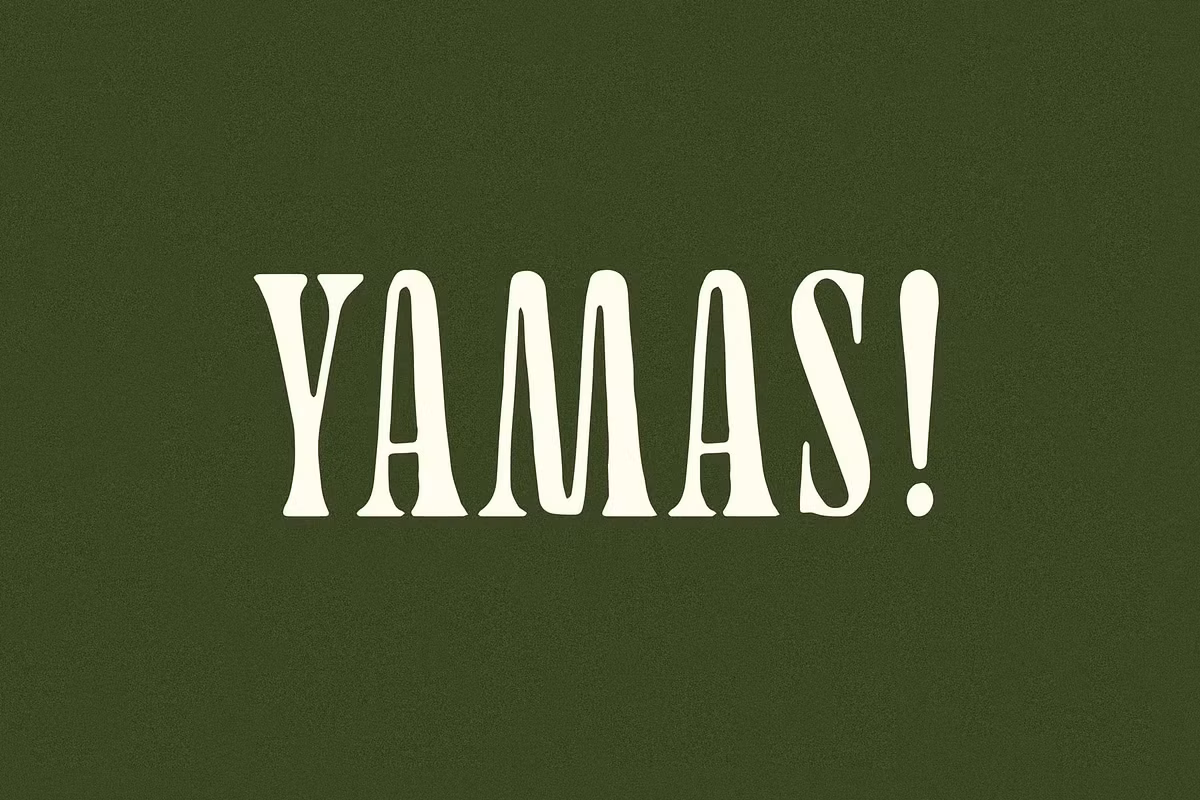
Yamas | A Soft Modern Serif Font Free Download
Elegant, smooth, and contemporary, Yamas | A Soft Modern Serif Font Free Download is a beautifully crafted serif typeface designed to bring a touch of modern sophistication to your designs. Perfect for branding, logos, editorial layouts, invitations, and packaging, Yamas offers a perfect balance between classic serif styling and contemporary design.
With its soft curves, clean lines, and refined details, Yamas gives your typography a sense of elegance and clarity. Whether you're designing a luxurious brand, creating an elegant website, or working on a high-end invitation, this font provides a polished, professional look.